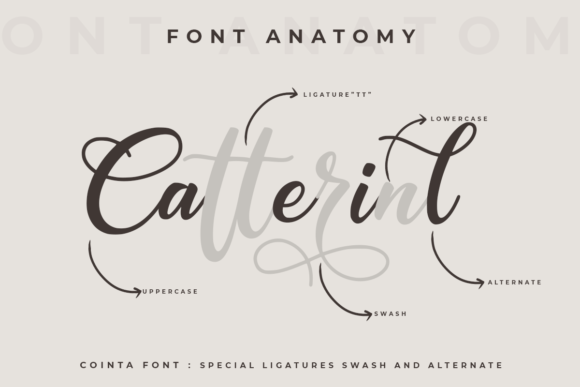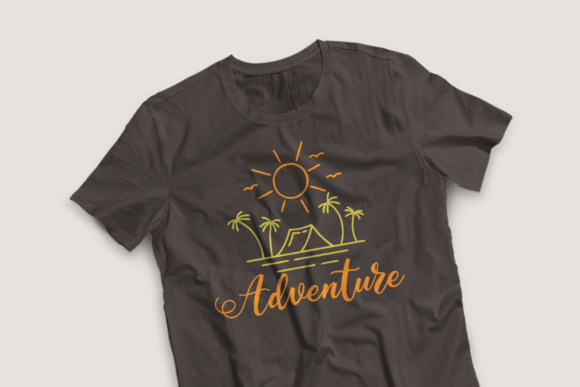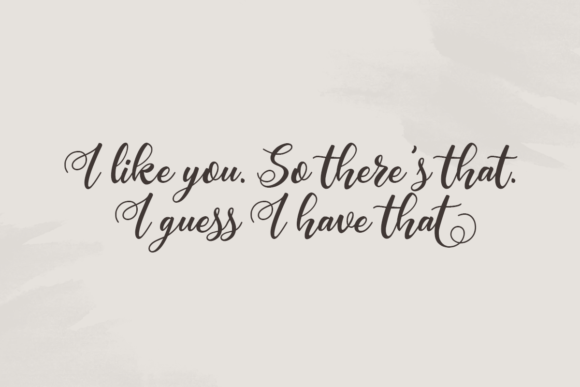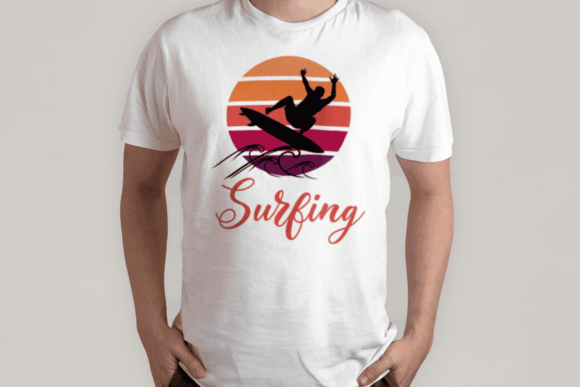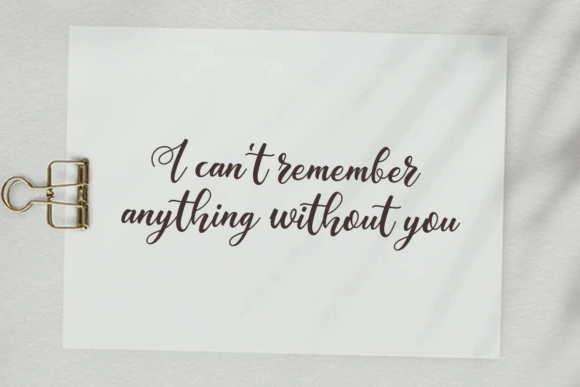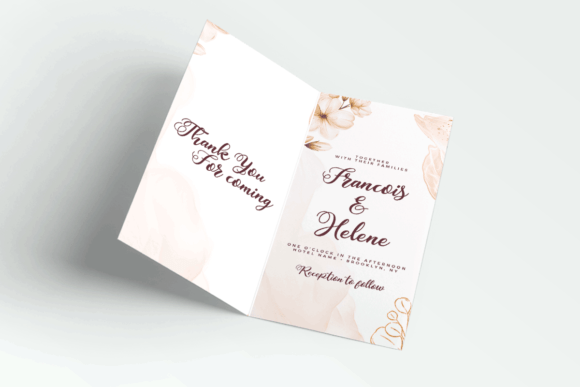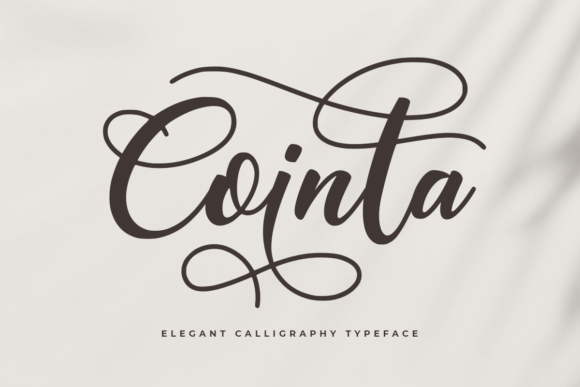
Cointa Font: A Handwritten Masterpiece for Your Creative Projects
Are you tired of using the same old fonts for your designs? Look no further! Cointa Font is a beautiful, handwritten font that is sure to elevate your creative projects to the next level. With its unique texture and elegant style, Cointa Font is the perfect choice for designers, crafters, and anyone looking to add a touch of sophistication to their work.
What Makes Cointa Font So Special?
Cointa Font is a one-of-a-kind font that boasts a distinctive texture, giving it a truly handcrafted feel. Its elegant style makes it perfect for a wide range of projects, from wedding invitations and branding materials to digital products and crafts. Whether you’re a professional designer or a DIY enthusiast, Cointa Font is sure to inspire your creativity.
PUA Encoding: Easy Access to Glyphs and Ligatures
One of the best things about Cointa Font is that it’s PUA (Private Use Area) encoded. This means that you can easily access all of the amazing glyphs and ligatures without any hassle. PUA encoding allows you to unlock the full potential of the font, giving you the freedom to experiment with different designs and styles.
Cointa Font is a versatile font that can be used for a wide range of projects. Designers will love its elegant style and flexibility, while crafters will appreciate its unique texture and charm. Whether you’re creating digital products, such as printable art or SVG files, or working on a craft project, like handmade cards or scrapbooking, Cointa Font is the perfect choice.
Why Choose Cointa Font?
- Unique texture: Cointa Font has a one-of-a-kind texture that gives it a truly handcrafted feel.
- Elegant style: The font’s elegant style makes it perfect for a wide range of projects, from formal to informal.
- PUA encoded: Easy access to glyphs and ligatures means you can experiment with different designs and styles.
- Versatile: Cointa Font can be used for digital products, crafts, and more.
- Experiment with different sizes: Cointa Font looks great in a variety of sizes, from small and delicate to large and bold.
- Play with glyphs and ligatures: Use the PUA encoding to unlock the full potential of the font and add some extra flair to your designs.
- Pair it with other fonts: Cointa Font pairs well with a variety of other fonts, so don’t be afraid to experiment with different combinations.
Cointa Font is a beautiful, handwritten font that is sure to elevate your creative projects to the next level. With its unique texture, elegant style, and PUA encoding, it’s the perfect choice for designers, crafters, and anyone looking to add a touch of sophistication to their work. So why wait? Fall in love with Cointa Font and use it on your next project!